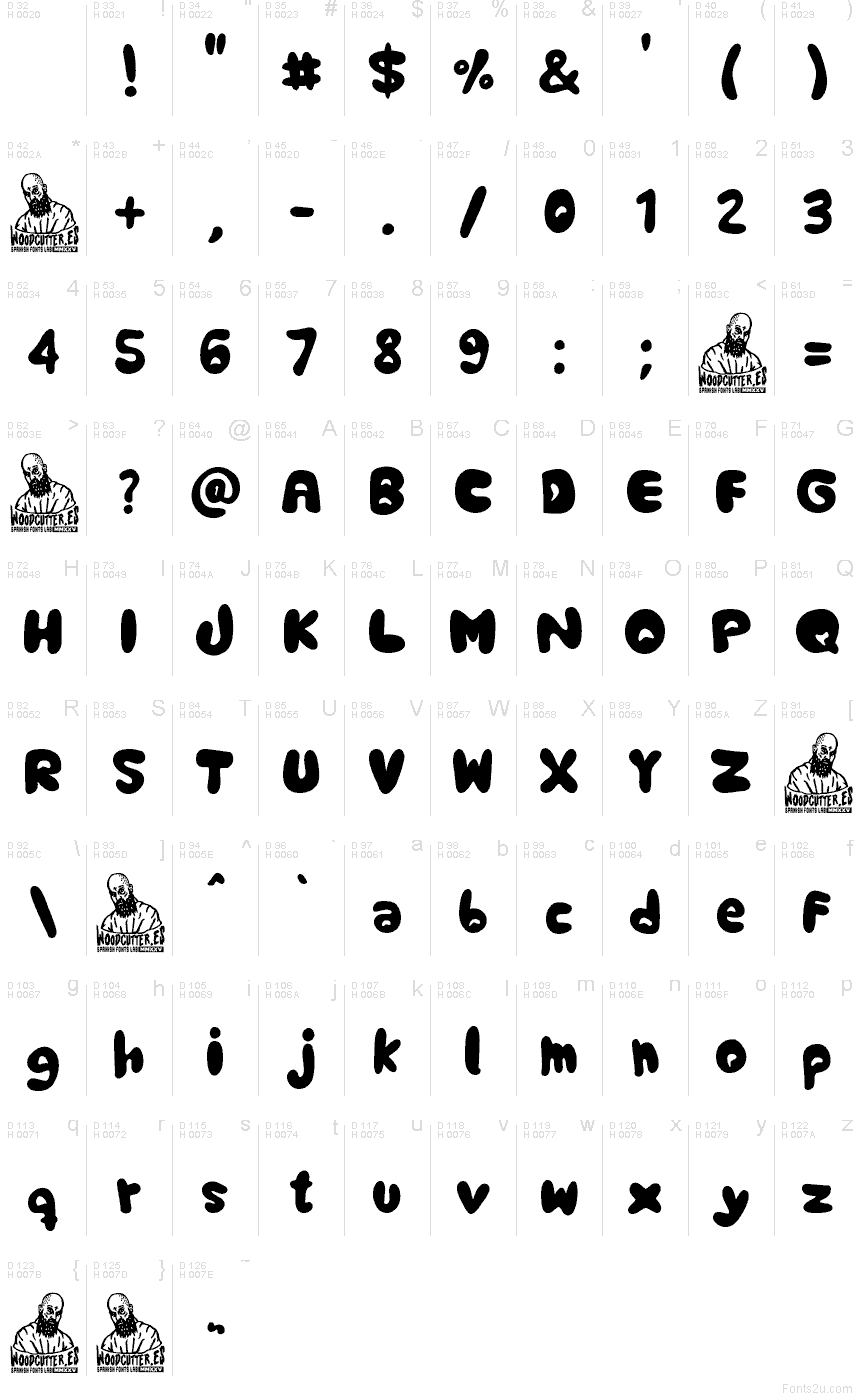
La Centralita Black
La Centralita Black font by Woodcutter is a free groovy display typeface with a chunky, inky bounce that feels straight off a retro cartoon title card. The letters puff out like soft blobs of paint, with smooth, rounded edges that make every word look friendly and loud at the same time. There’s a playful rhythm to the spacing, so even simple words stack into bold, poster-ready shapes.
Using La Centralita Black, headlines grab attention without feeling harsh, which works beautifully for party posters, kids’ book covers, playful logos, stickers, food or beverage packaging, and social media graphics. This free font really shines when you let it go big, so keep it for titles and pair it with a clean, light sans serif for body text to balance all that juicy visual weight.